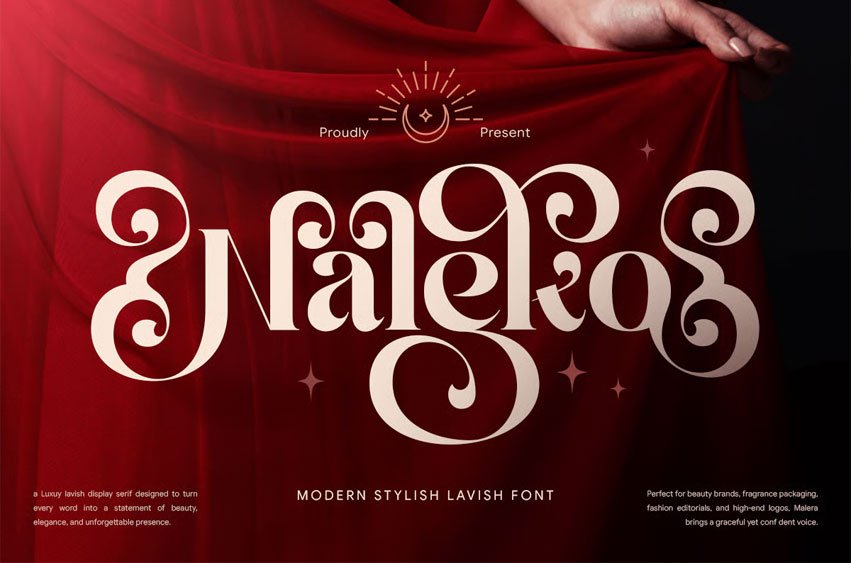
Naleko Font Modern Stylish Lavish Font Naleko is a modern stylish lavish font designed to express elegance, luxury, and refined visual aesthetics. Featuring smooth curves, stylish letterforms, and a sophisticated character, Naleko is perfect for branding, logos, fashion labels, beauty products, editorials, packaging, and high-end design projects.
Blending modern design with a lavish and elegant touch, Naleko creates a graceful and premium look that enhances brand identity. Its versatile and stylish appearance makes it ideal for boutique brands, jewelry labels, lifestyle products, cosmetics, and designers seeking a font that reflects luxury and creativity.
Naleko – Modern Stylish Lavish Font Features:
- Modern stylish design with lavish elegance
- Ideal for logos, branding, editorials, and packaging
- Uppercase, lowercase, numerals, and punctuation included
- Smooth curves with refined visual balance
- Perfect for luxury, classy, and premium design projects
Enhance your brand with Naleko – the modern stylish lavish font crafted for elegant and sophisticated visuals.